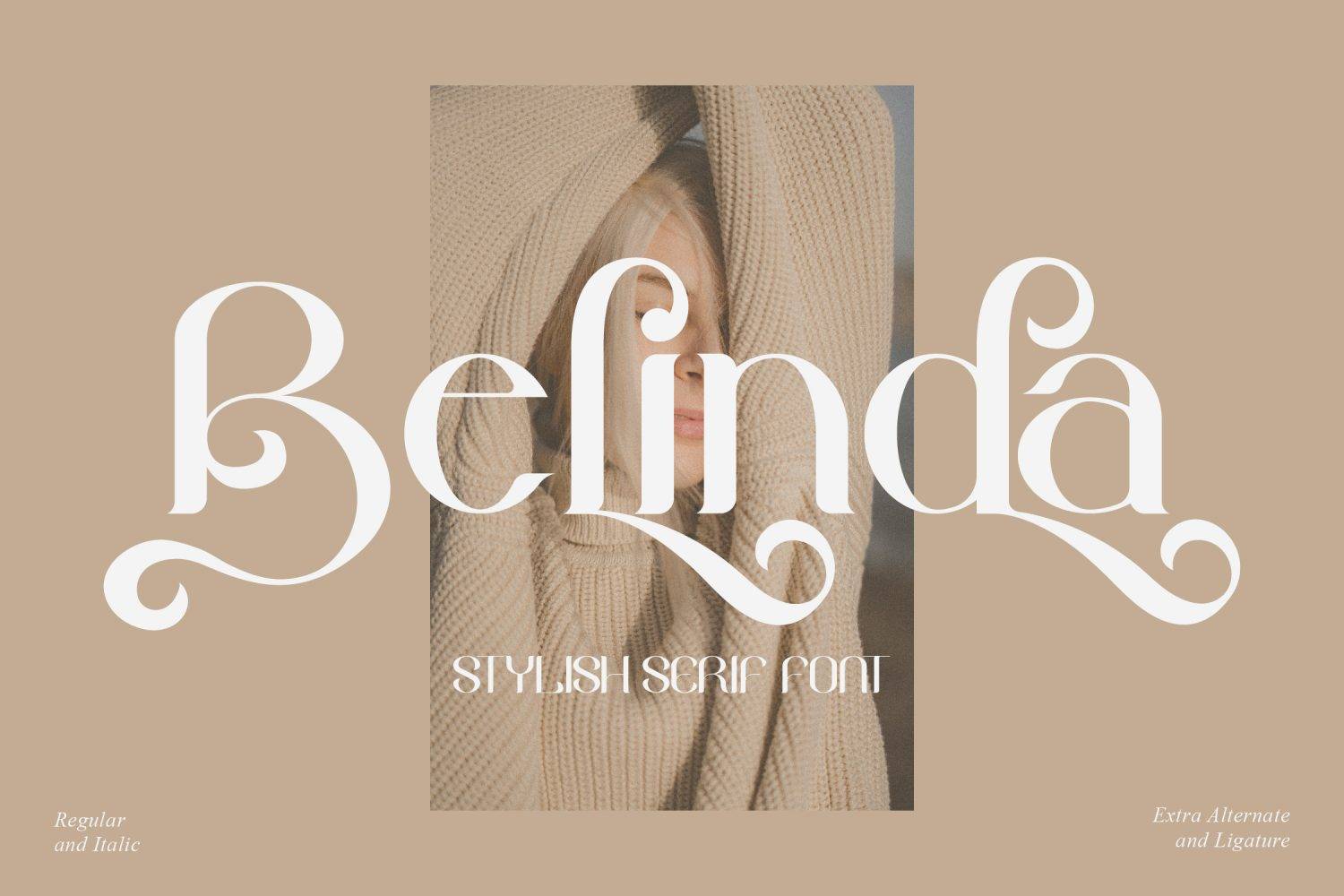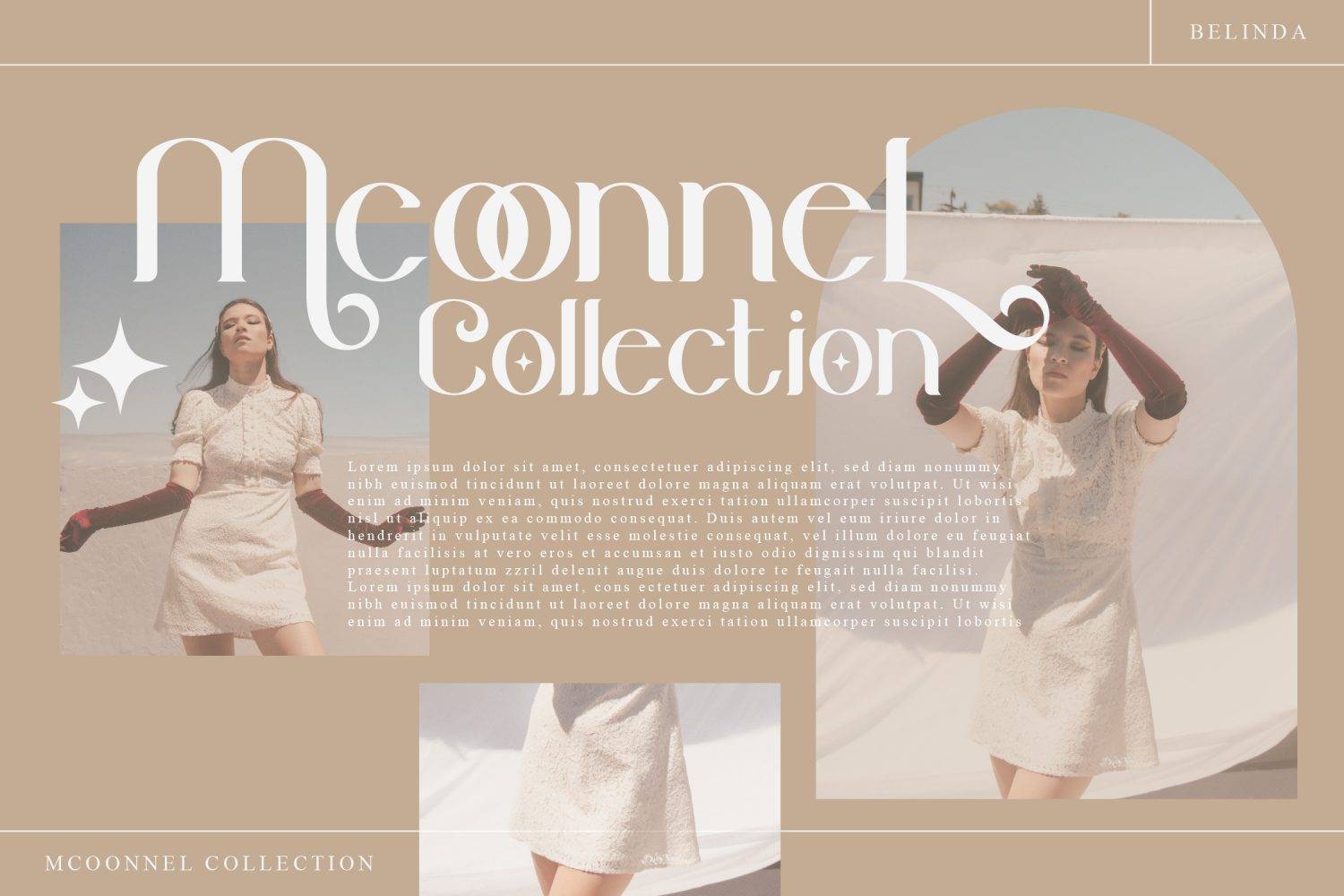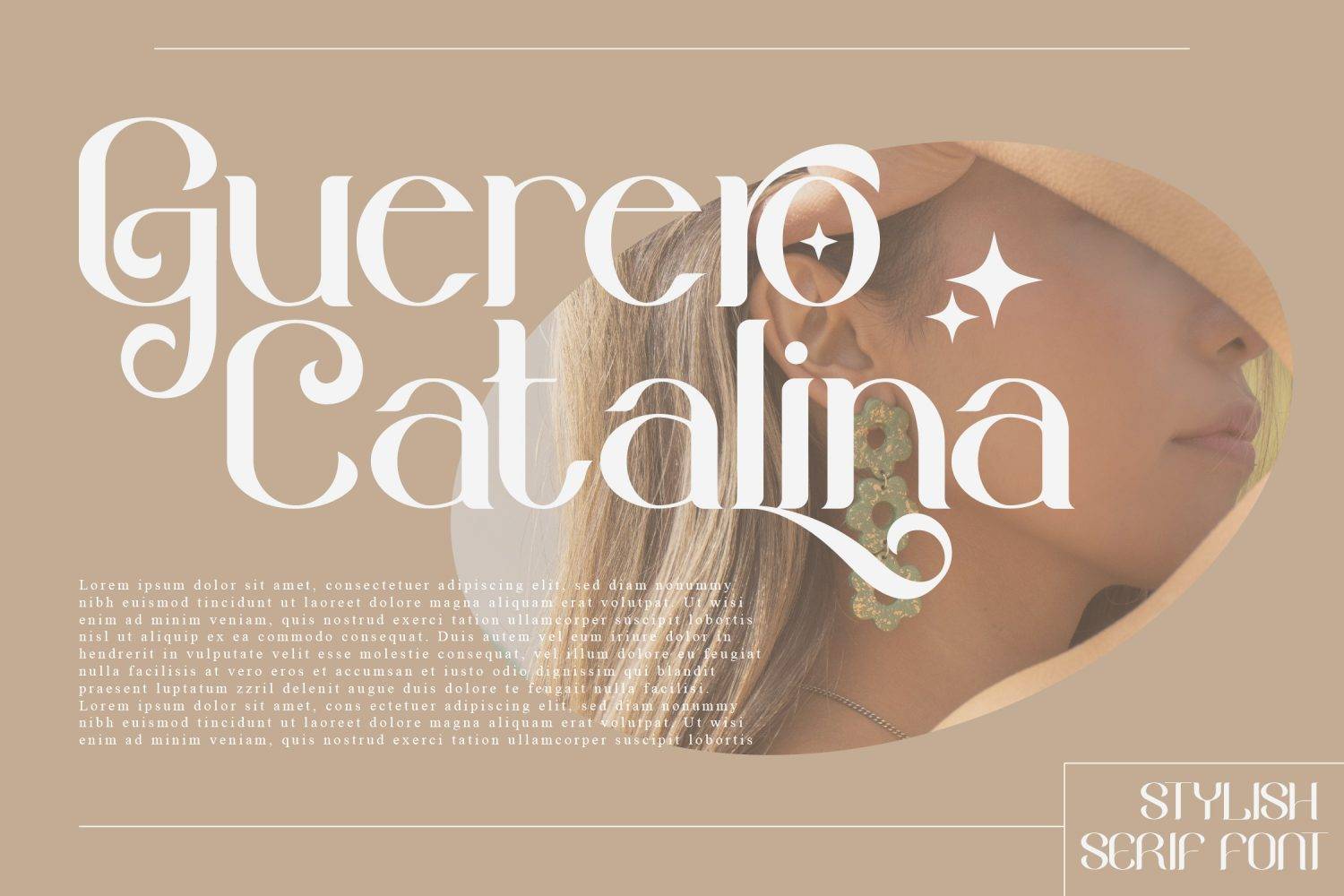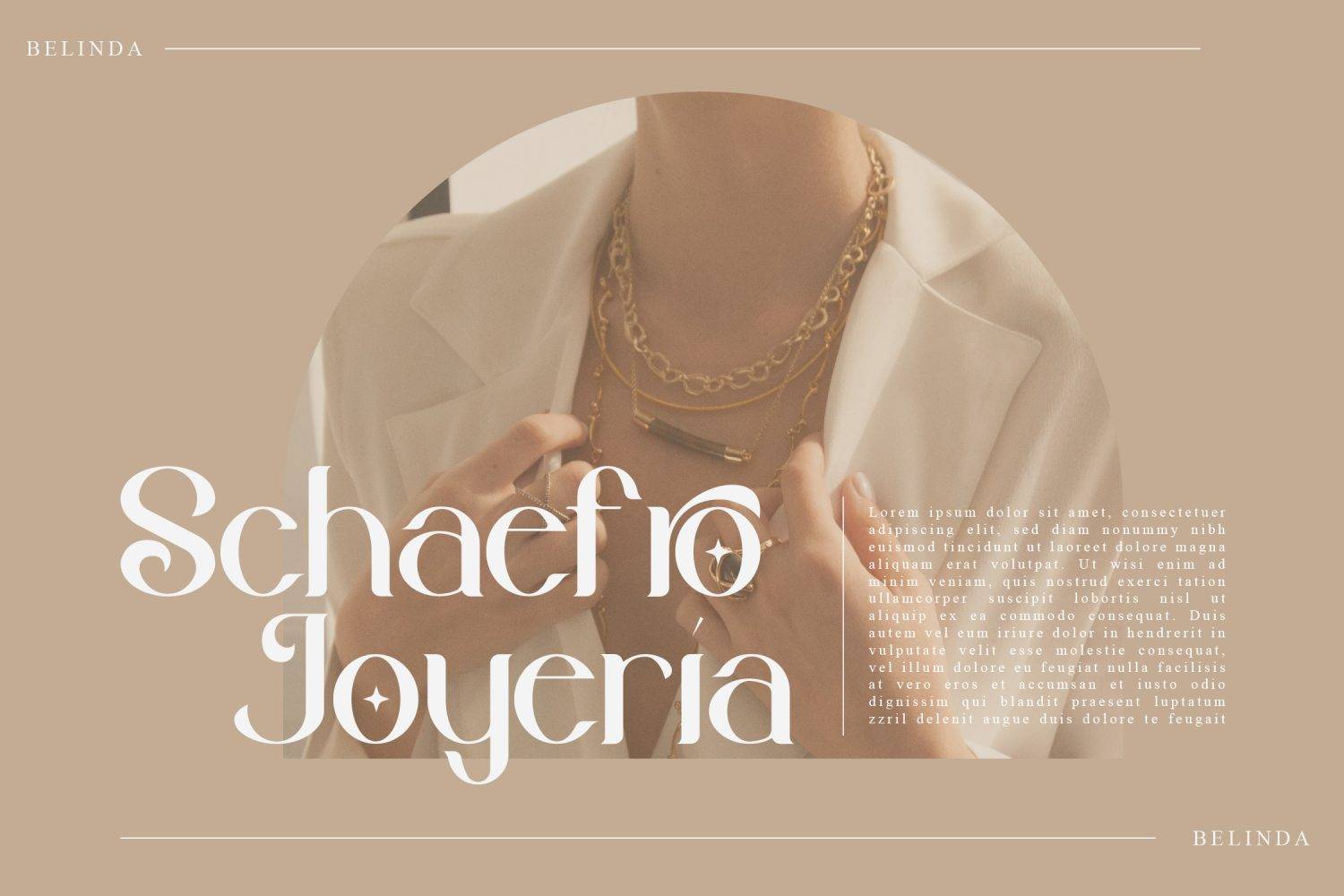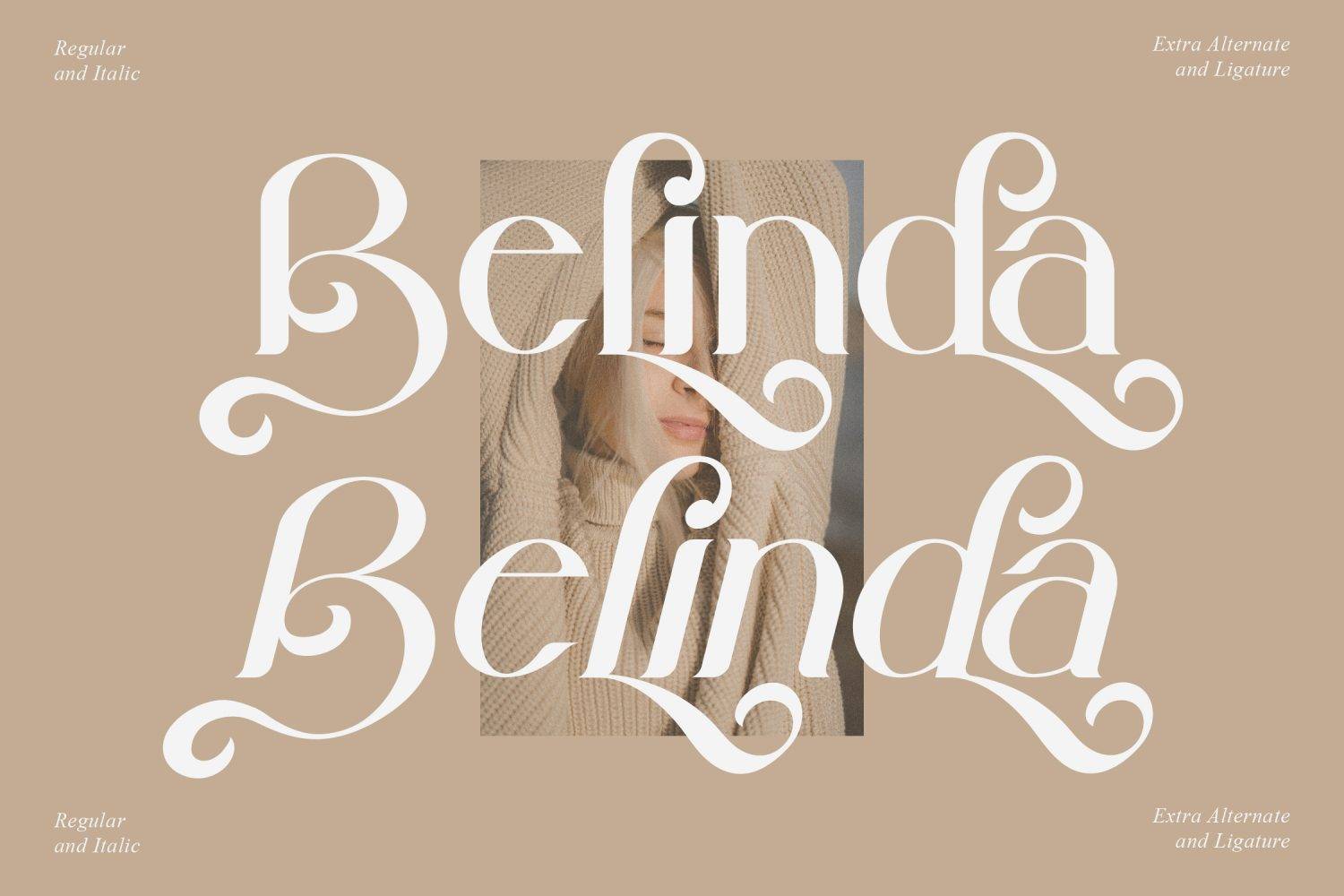
Belinda is a stylish serif font with a high-contrast, elegant design characterized by thin, elongated serifs and slender letterforms that exude a modern yet sophisticated vibe. Its unique shapes, such as the single-story 'a' and distinctive ampersand, give it a refined personality ideal for fashion branding, luxury packaging, and striking headlines where a chic and artistic touch is desired. This font performs best in large sizes, bringing a graceful and contemporary flair to editorial layouts and upscale visual identities.
Belinda Font
About Belinda Font